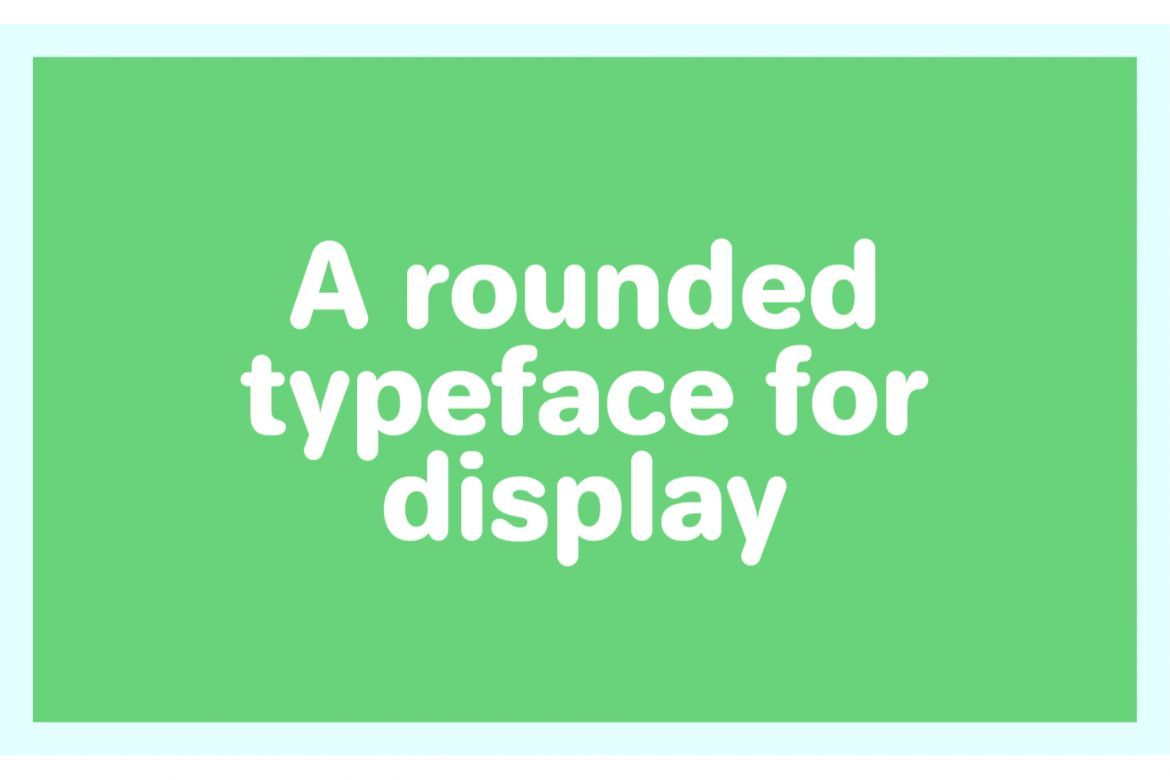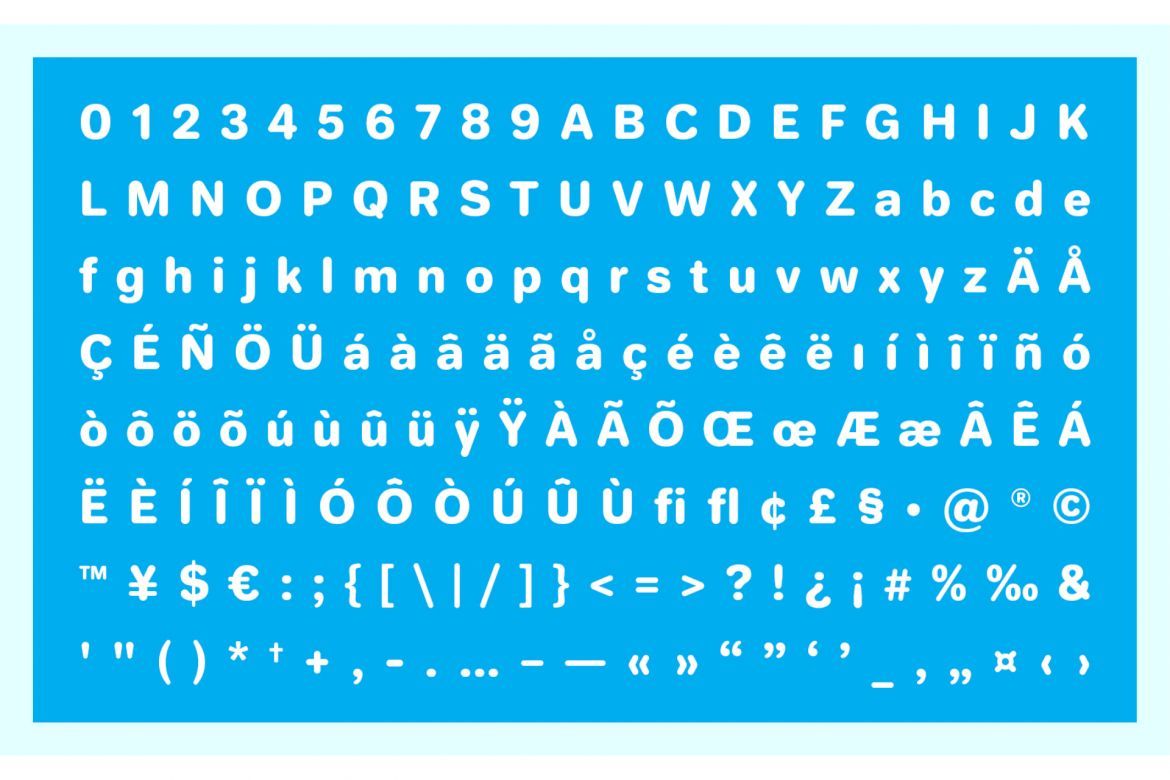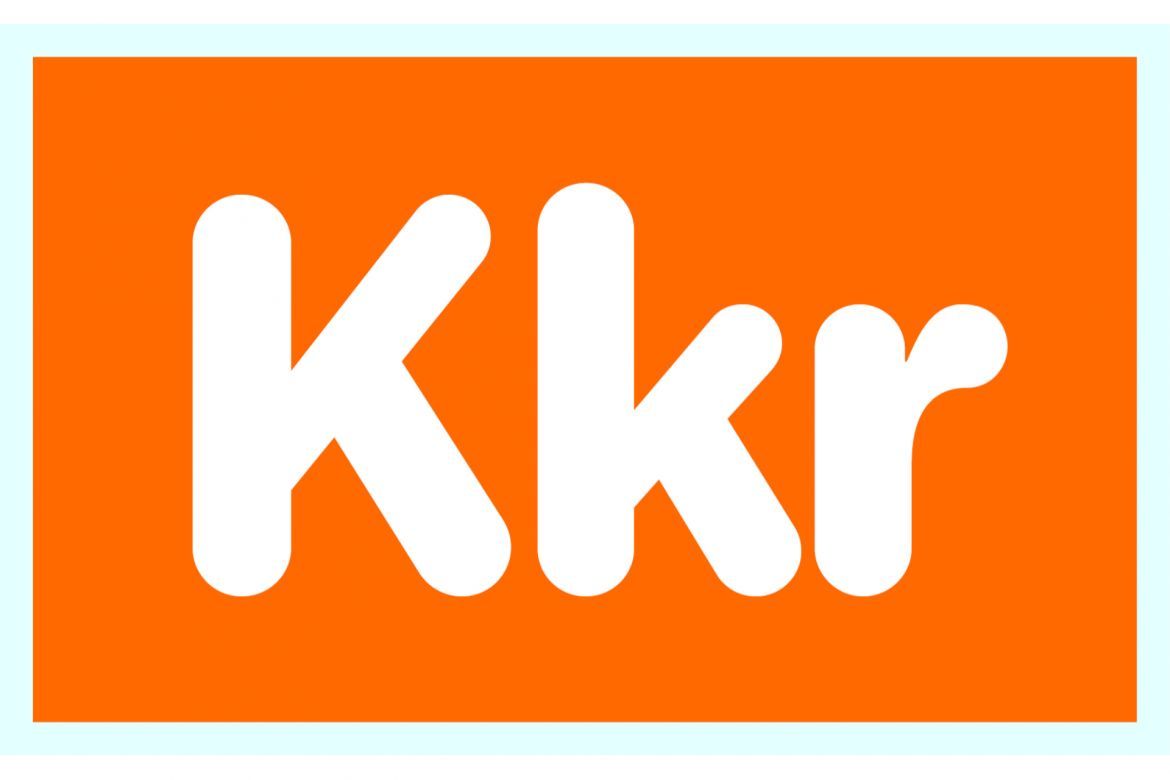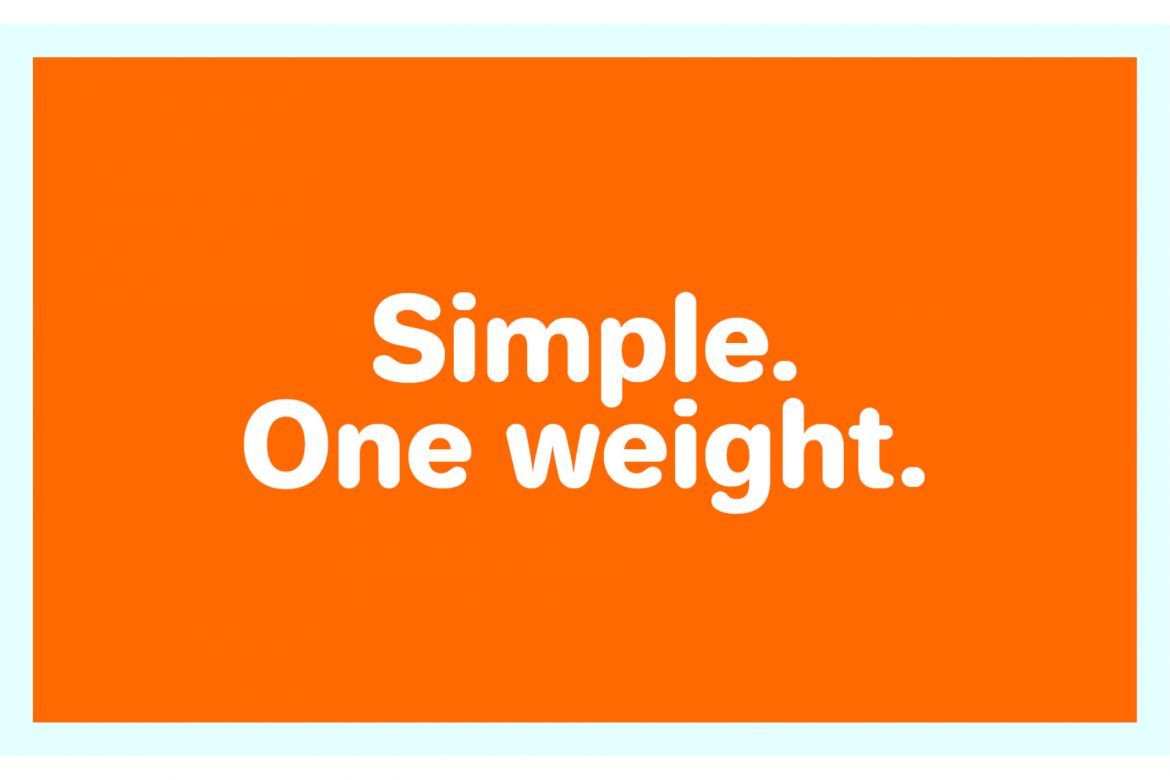
Jellee - Free Typeface
Jellee™ Typeface is a free rounded and soft sans serif typeface for posters, headlines and titles. Great for cool and friendly animations.